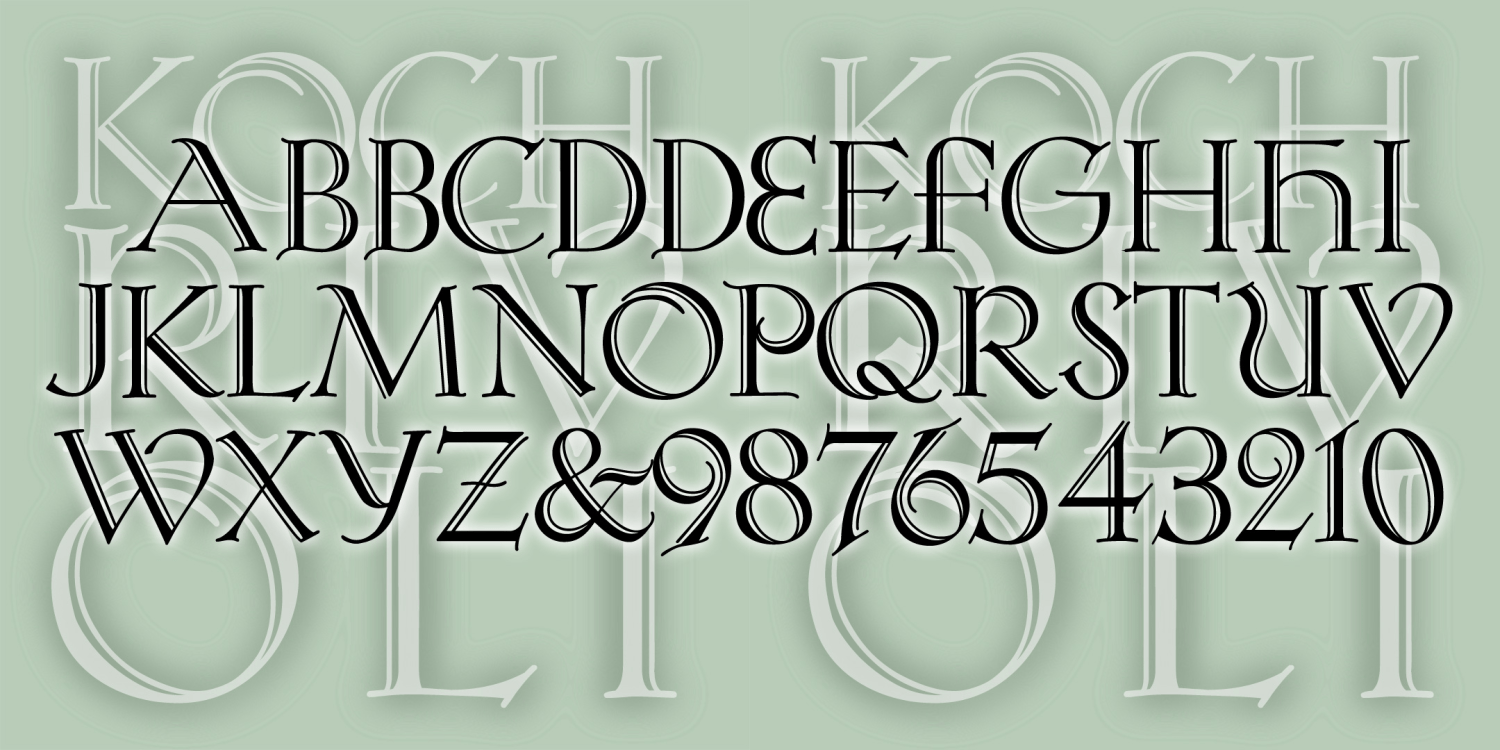
Koch Rivoli
Font Family by Harold's Fonts
KOCH RIVOLI, an elegant all-caps font, is my digital version of Rudolf Koch's original. Although now known as Rivoli, in other references it is called simply "Zierbuchstaben" (decorative book initials), intended as a companion font to Koch Antiqua, which is also known as Locarno, Eve, and Lilith. Very clean and elegant. Try it with one of those (or Bernhard Modern) if you need a number or more punctuation than is included.